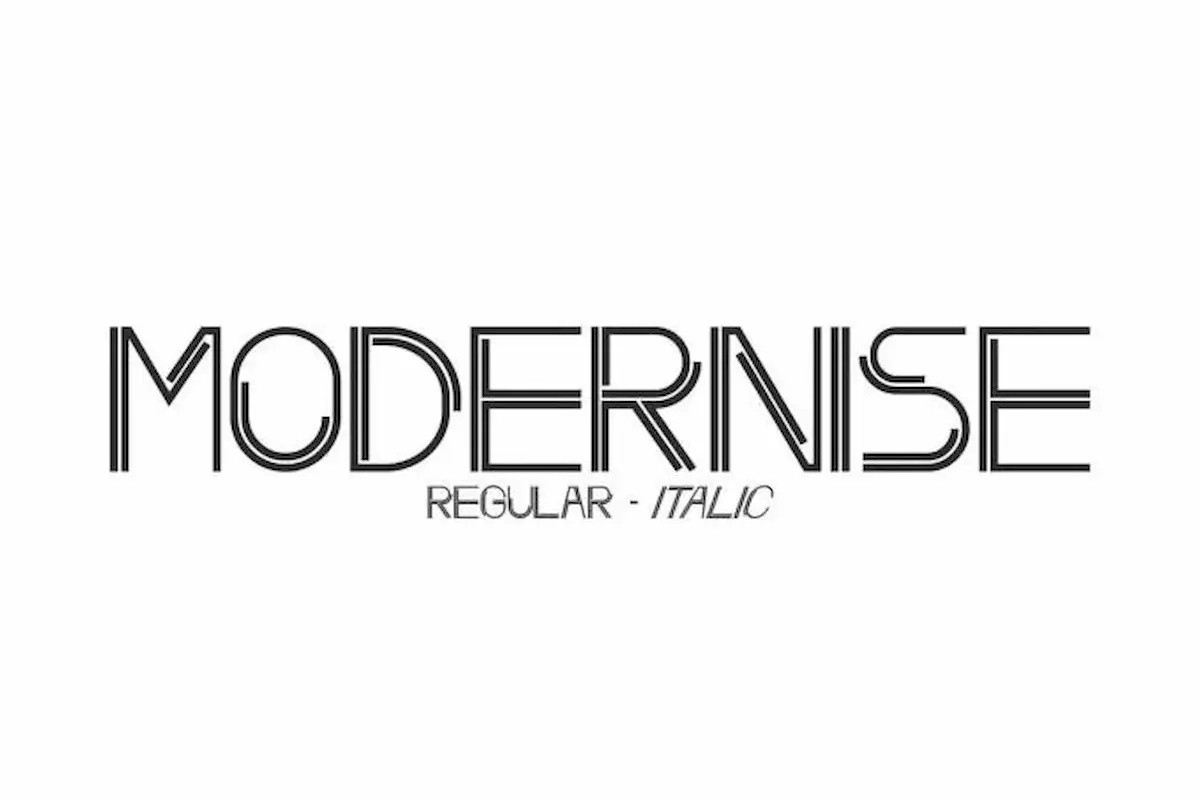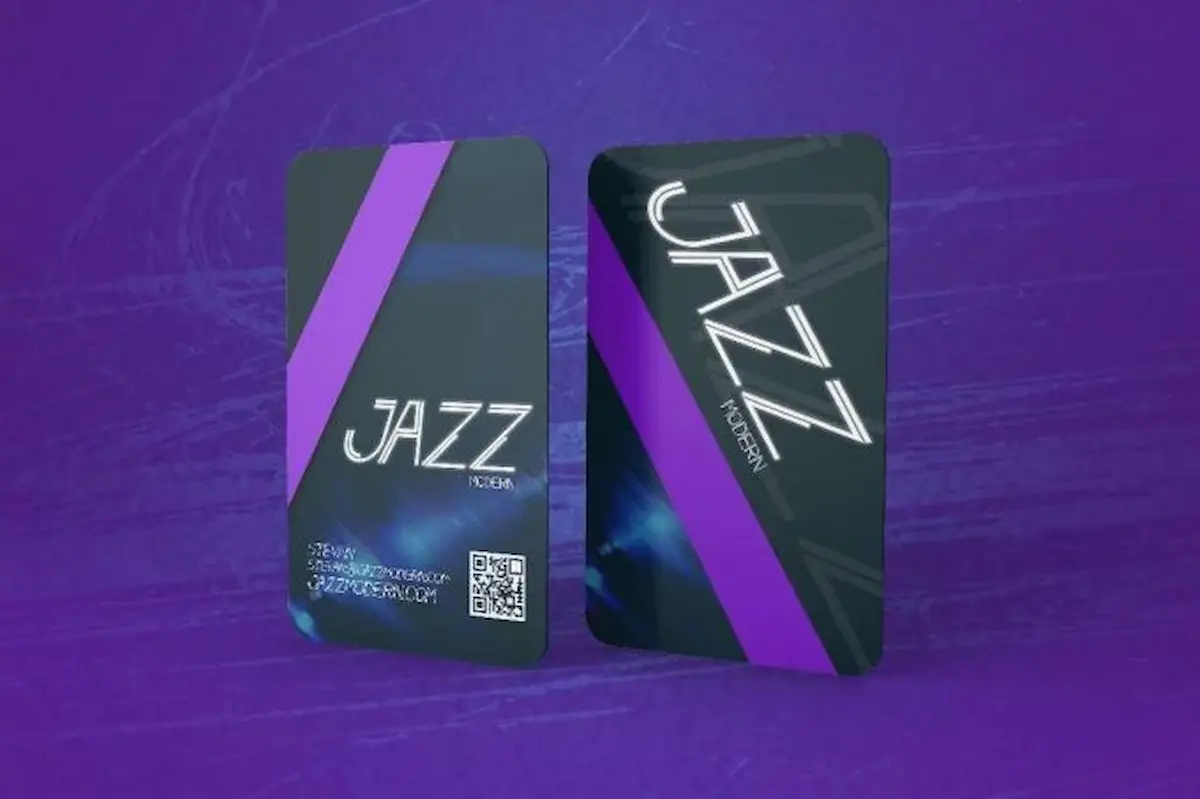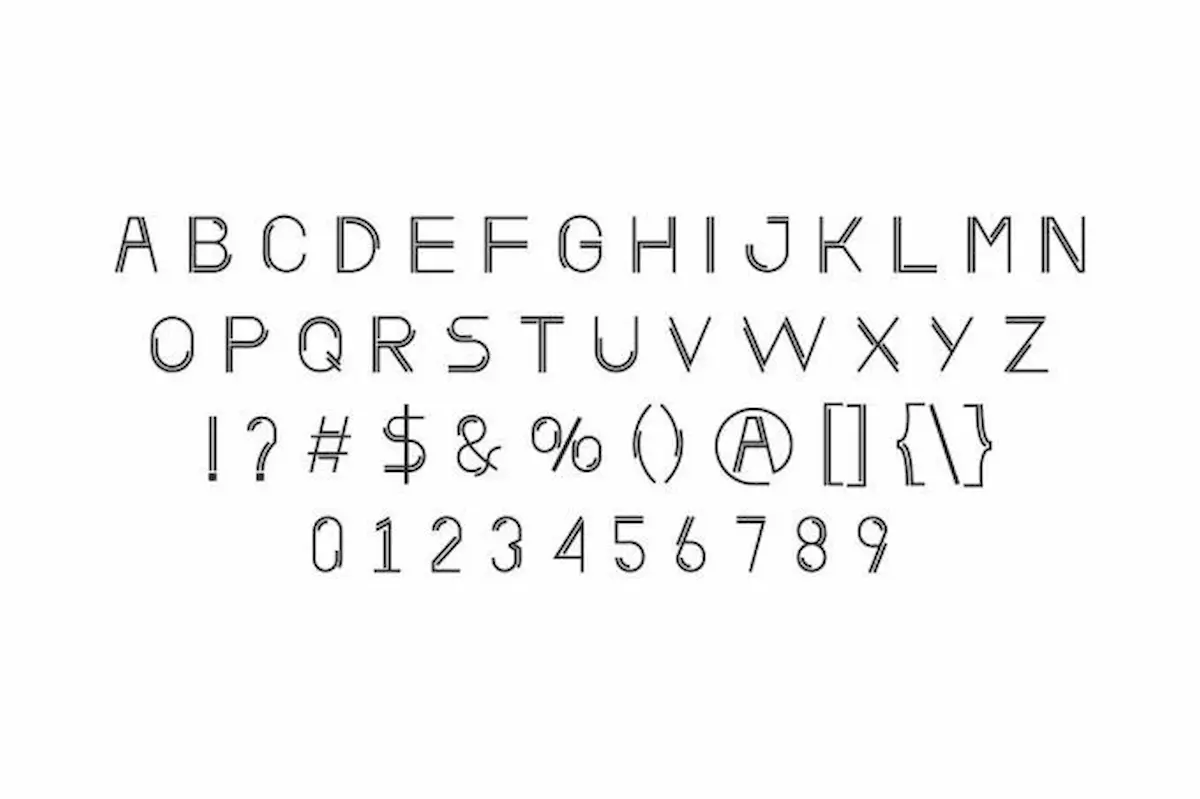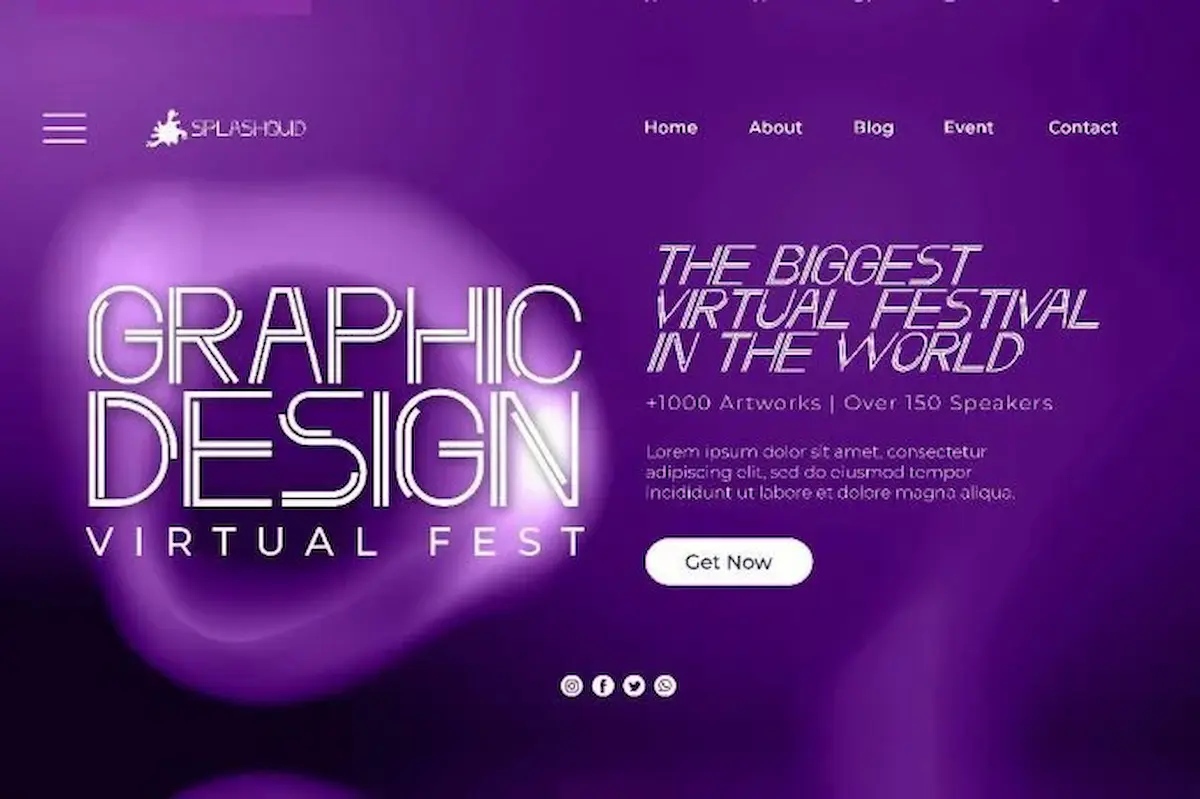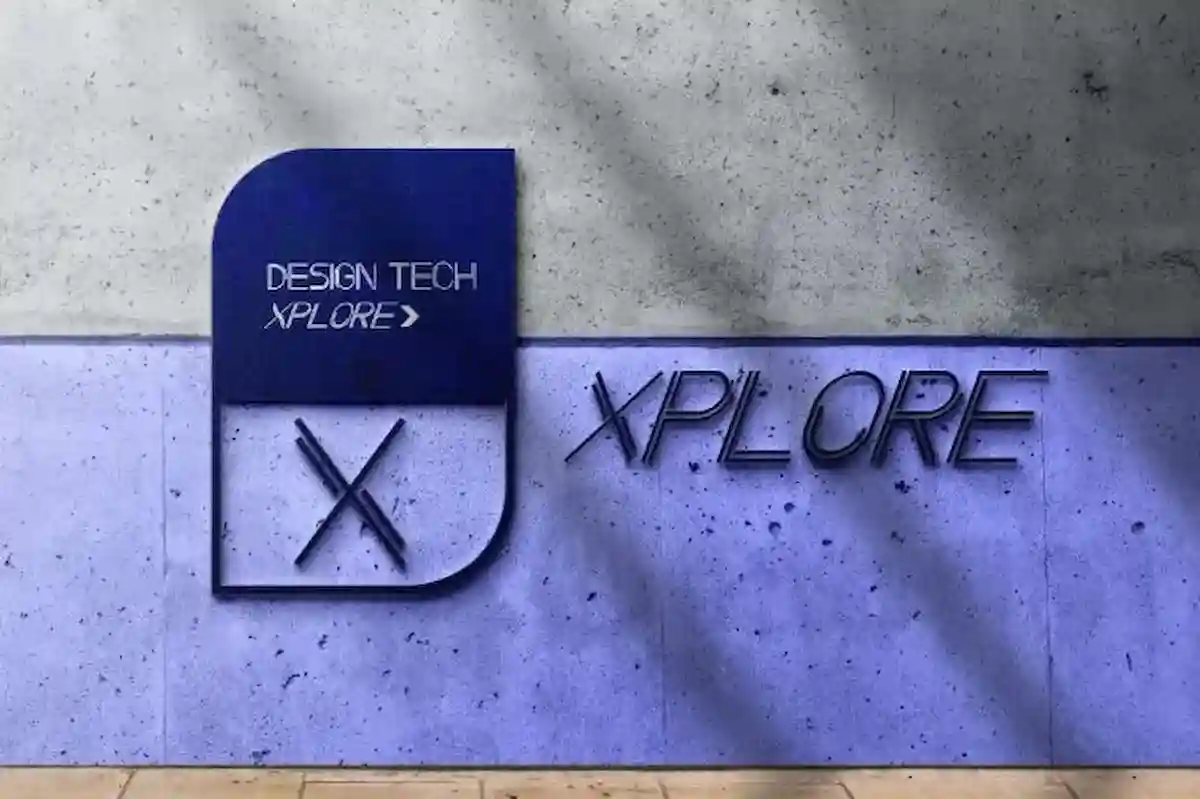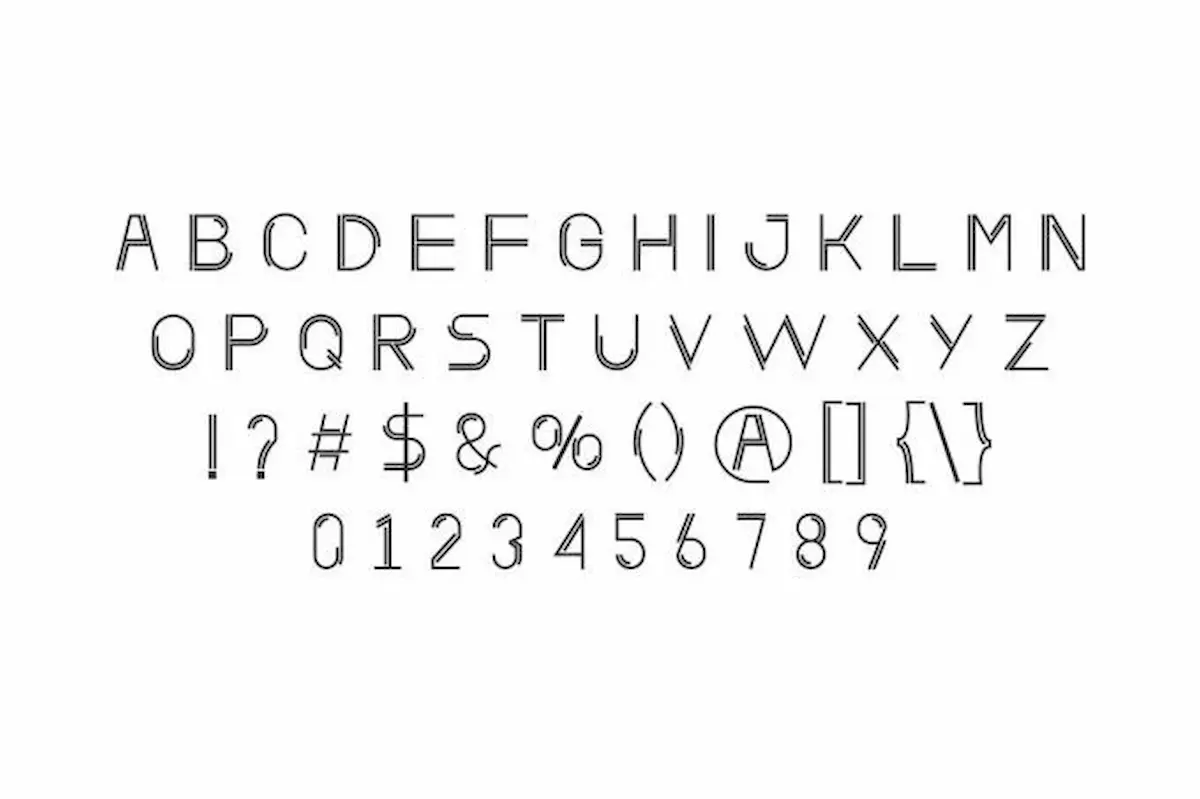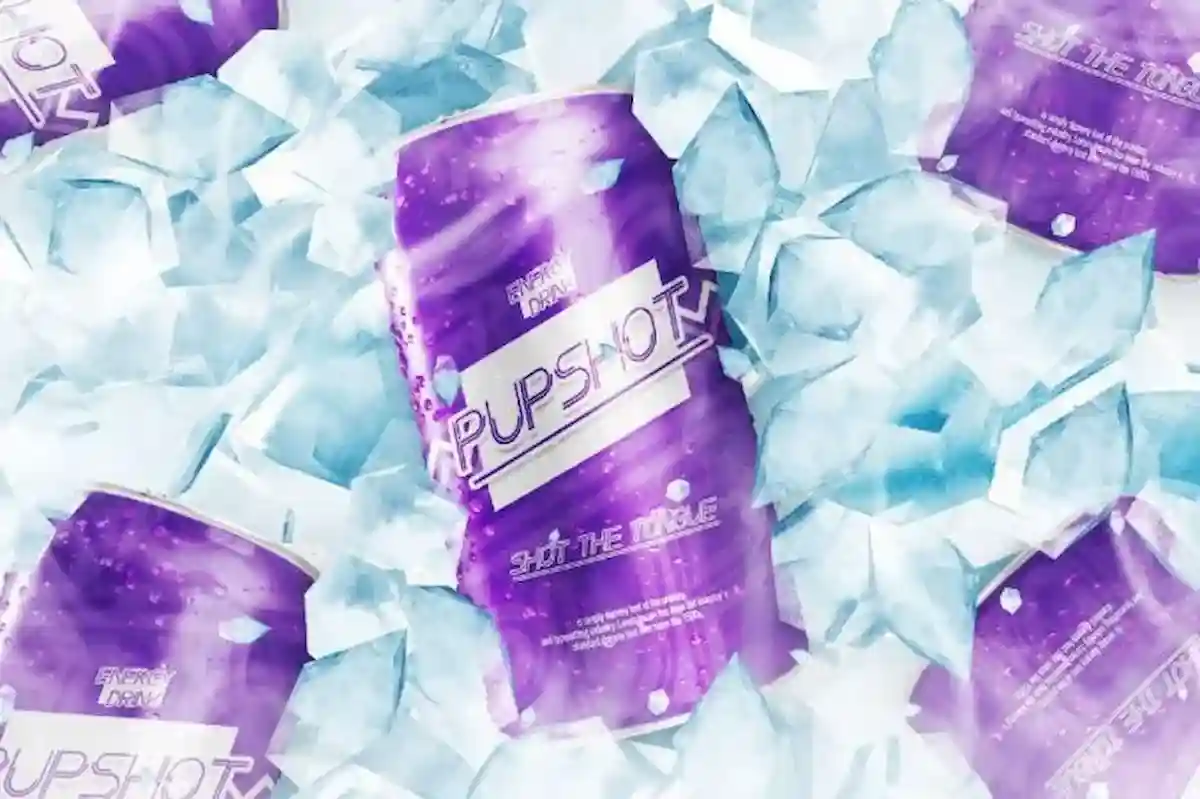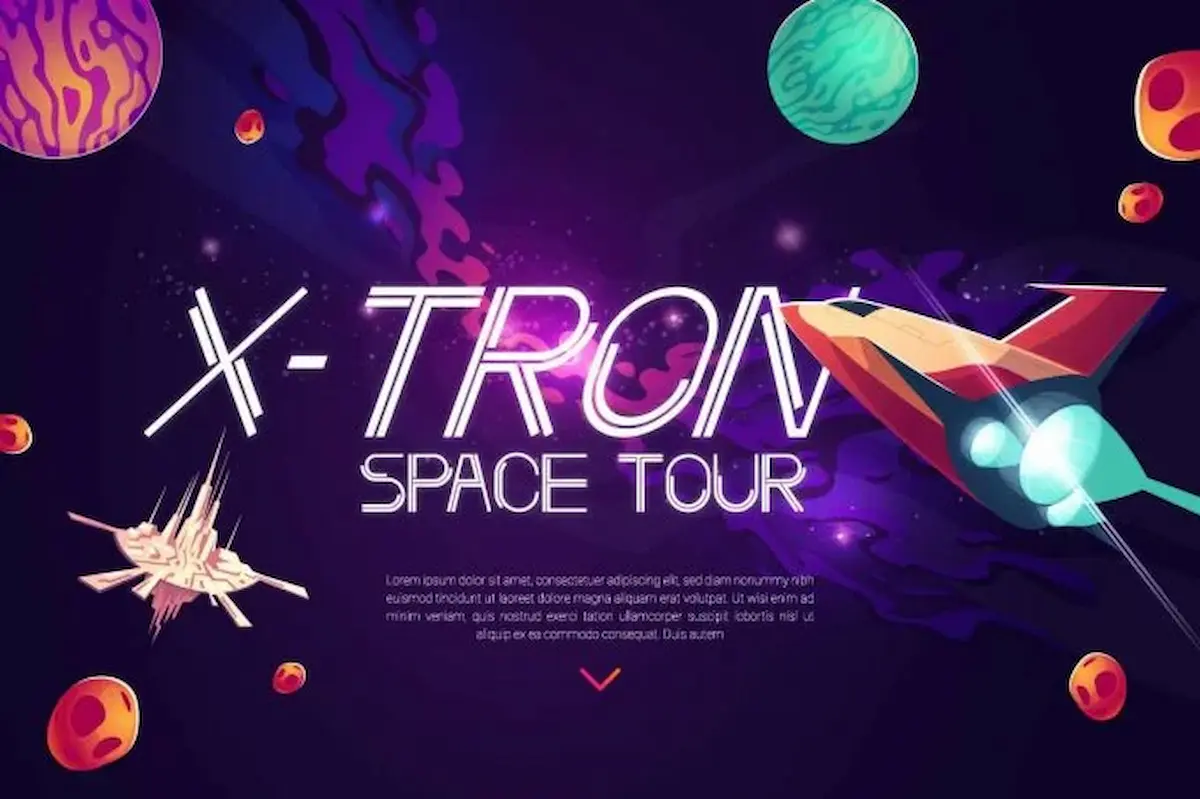
Modernise Font is a modern sans serif display font by NihStudio. It will great for games, sport, techno etc.
Modernise Font is a unique sans serif font with stylish style. This font has a thin line like outline which makes it classy yet simple, try the font by typing your own text below. Please note that the test font below is a demo file, so some specimens/characters will not show up.
Modernise Font comes with OTF File, TTF File, Woff File and we’ll also include Read-me help file txt. This font has two different styles: Regular and Italic. This font will be great for any projects (require extended license) including: headline, logo branding, print media, products packaging, screen printing, signage, webpage etc. It will be great for many business industries: games, music, space, sport, techno etc